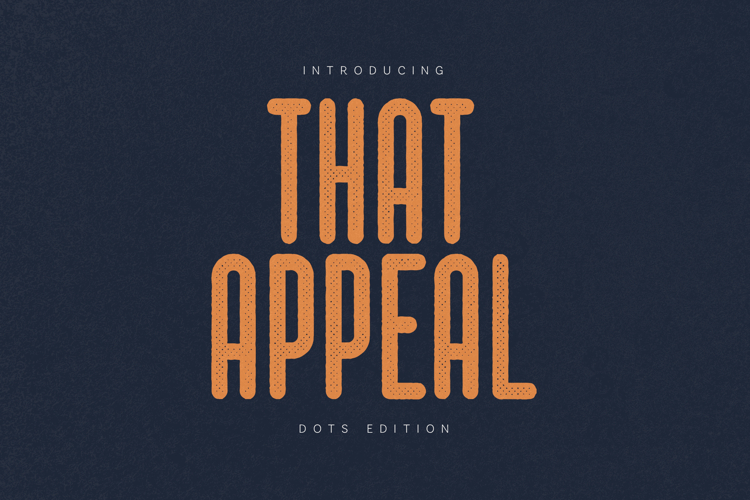
That Appeal Dots Display Font
That Appeal – Dots Edition is a bold display font featuring a distinctive dotted texture that adds depth, warmth, and playful character to modern typography. With tall proportions, rounded forms, and evenly spaced dot detailing, this typeface delivers a soft yet confident visual rhythm.
Designed for attention-grabbing design, That Appeal – Dots Edition is ideal for posters, headlines, branding, packaging, social media graphics, creative campaigns, apparel, and contemporary editorial layouts. Its decorative texture brings personality without sacrificing readability, making it perfect for bold statements and expressive visuals.
That Appeal – Dots Edition is built for designers who want modern display typography with texture, charm, and a friendly, human feel.